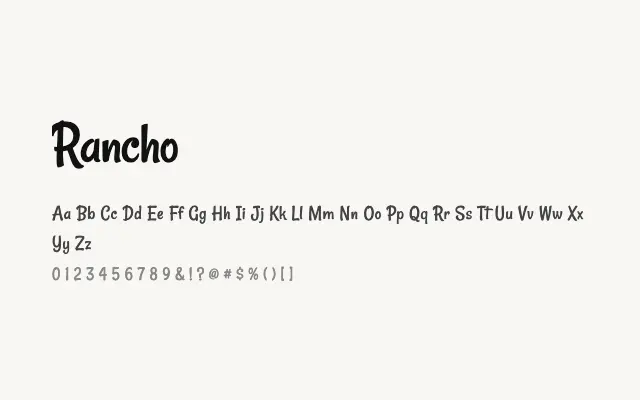
A relaxed, natural handwriting script with an approachable pen-drawn quality that feels personal without being fussy.
Rancho occupies the comfortable middle ground between polished calligraphy and everyday handwriting, giving it broad appeal for informal branding, greeting card design, and social media graphics. Its consistent stroke weight and clear letter construction maintain legibility even at moderate sizes. The single weight limits its range, but the casual warmth it projects is genuinely useful for friendly, human-centred design.
A relaxed, informal handwriting script with a natural, pen-drawn quality and consistent but unforced rhythm. The letterforms are legible and unpretentious, sitting between formal calligraphy and everyday handwriting.